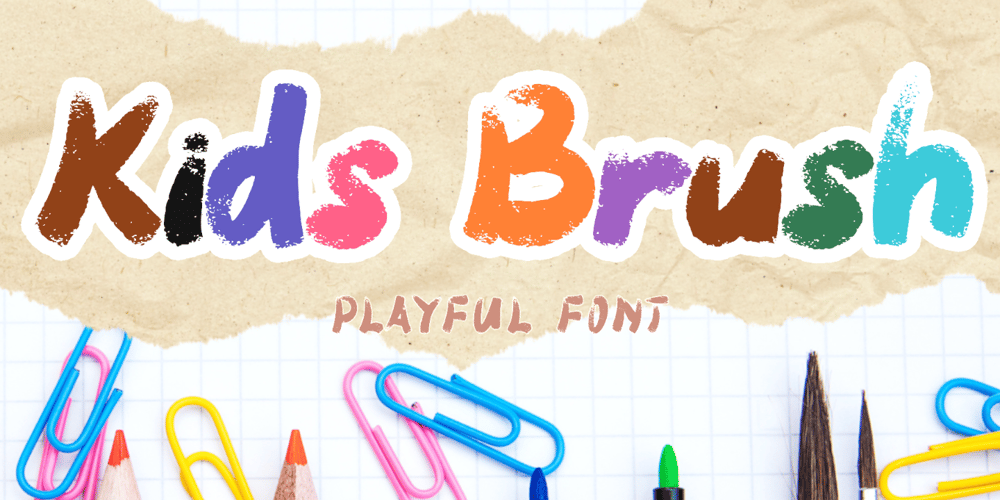
Kids Brush Font Family was designed by Isroni Yoga Prasetya and published by Yoga Letter. Kids Brush contains 1 styles and family package options. “Kids Brush” is a playful font that is cute and unique. This font is equipped with uppercase, lowercase, numerals, punctuation, and multilingual support. Very suitable for posters: 4th of July, summer, back to school, classmate, camping, father’s day, teacher, Christmas, and others.